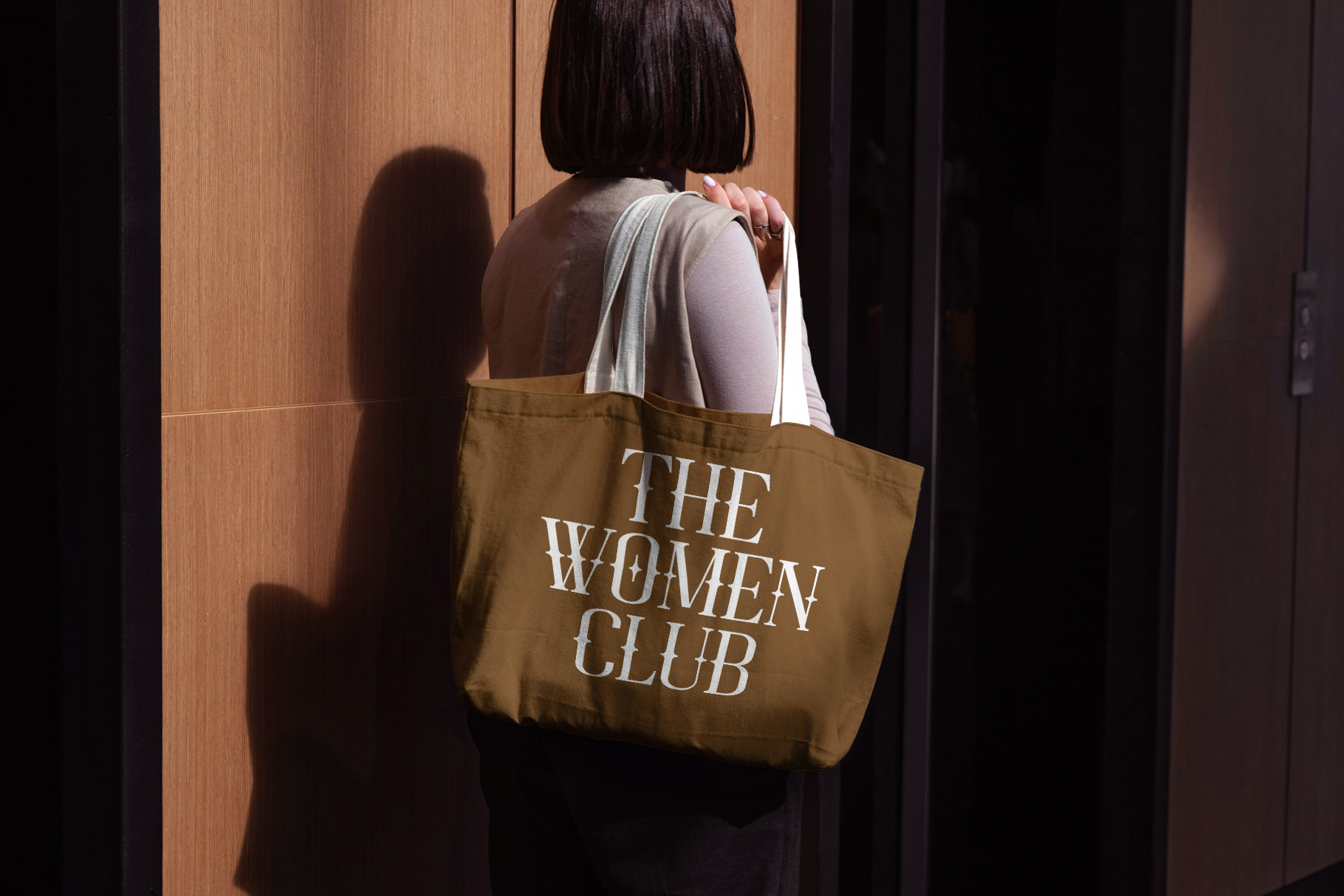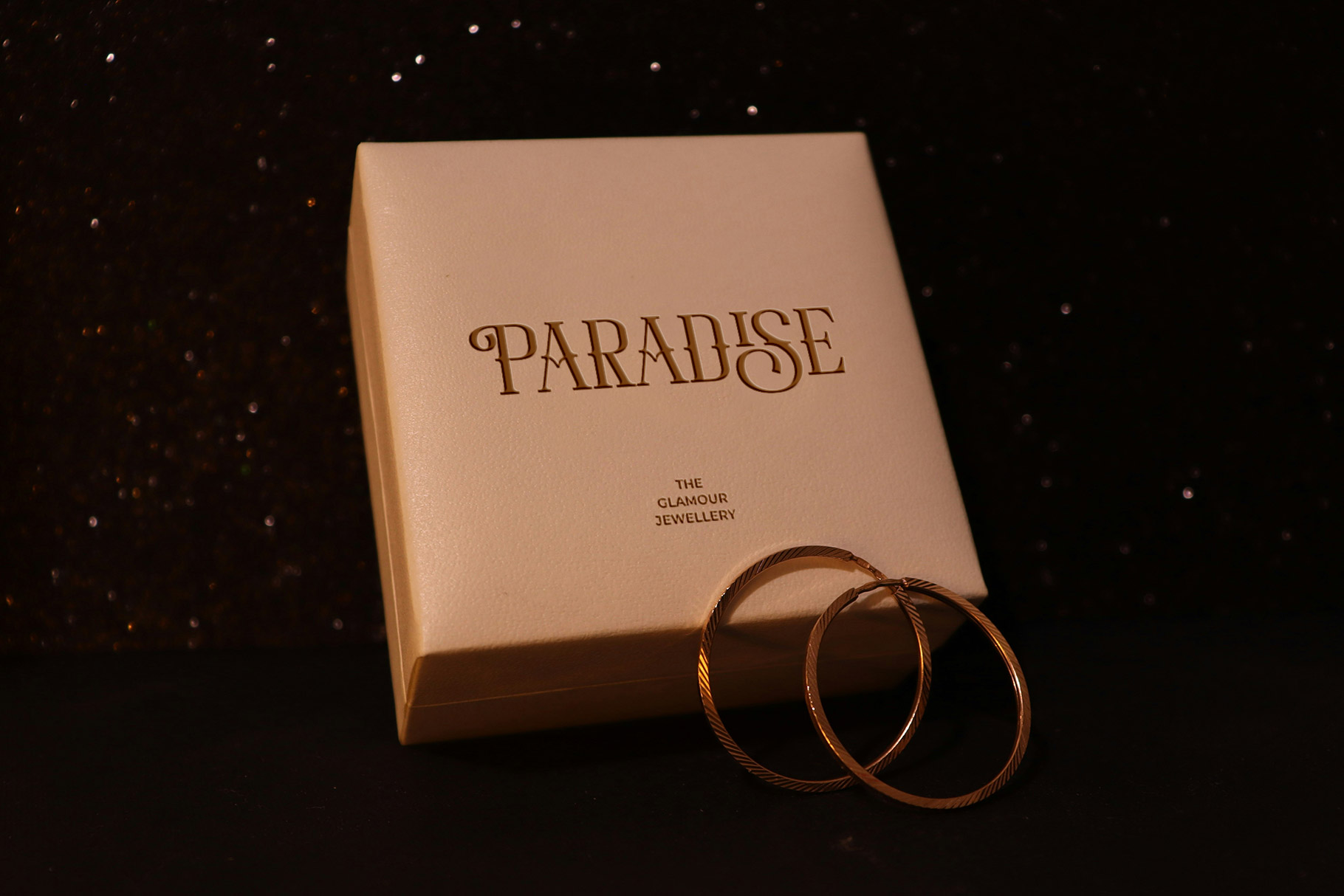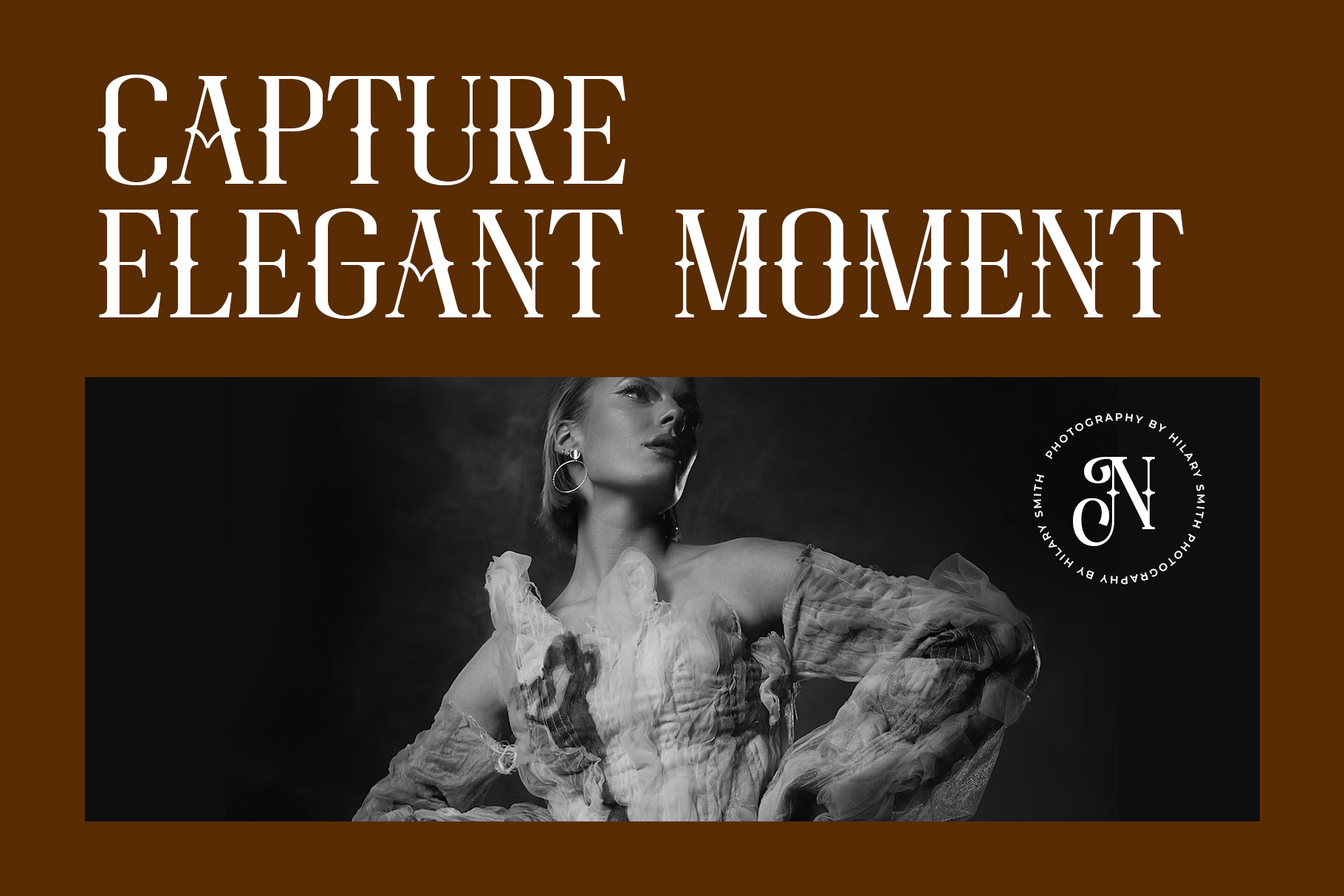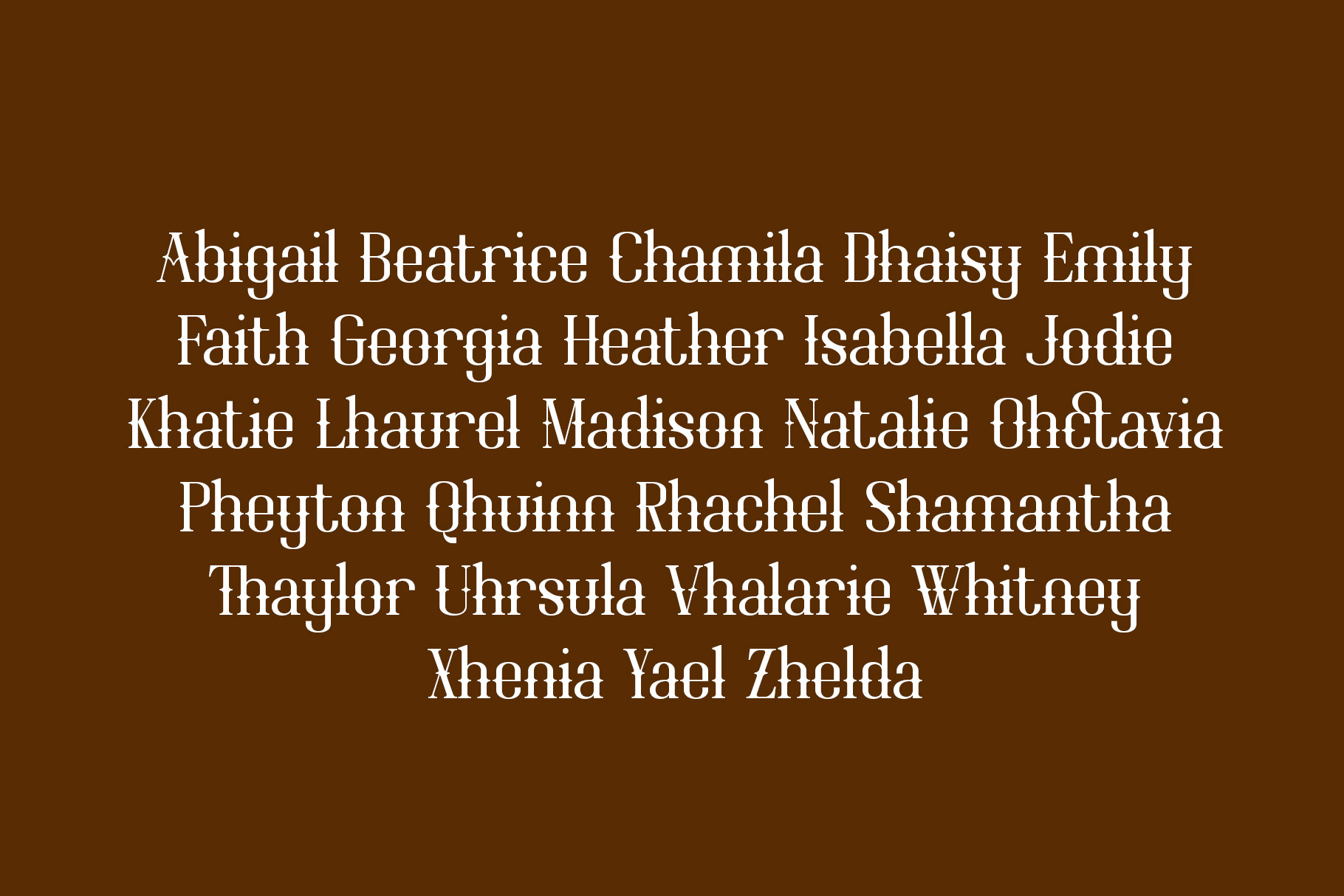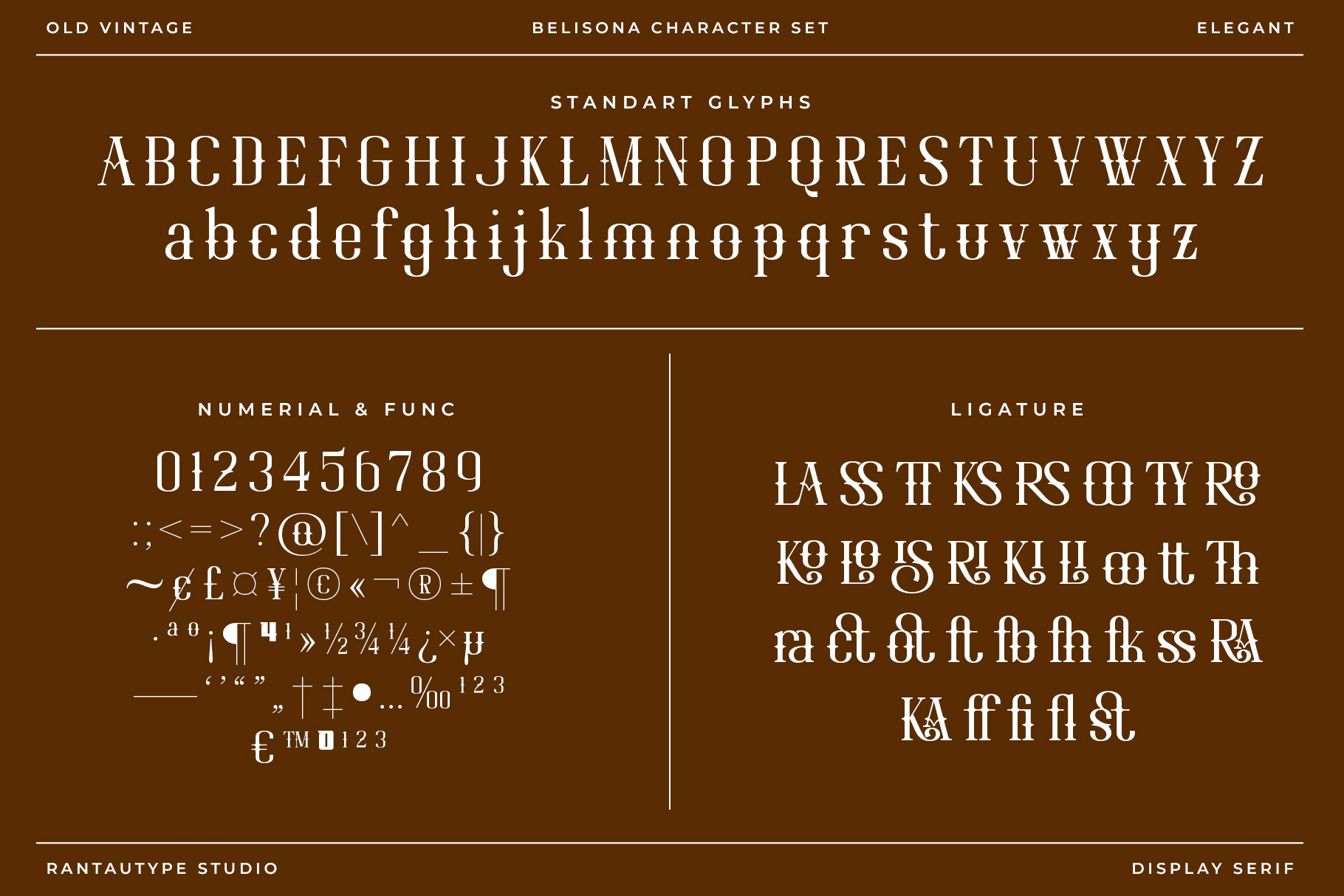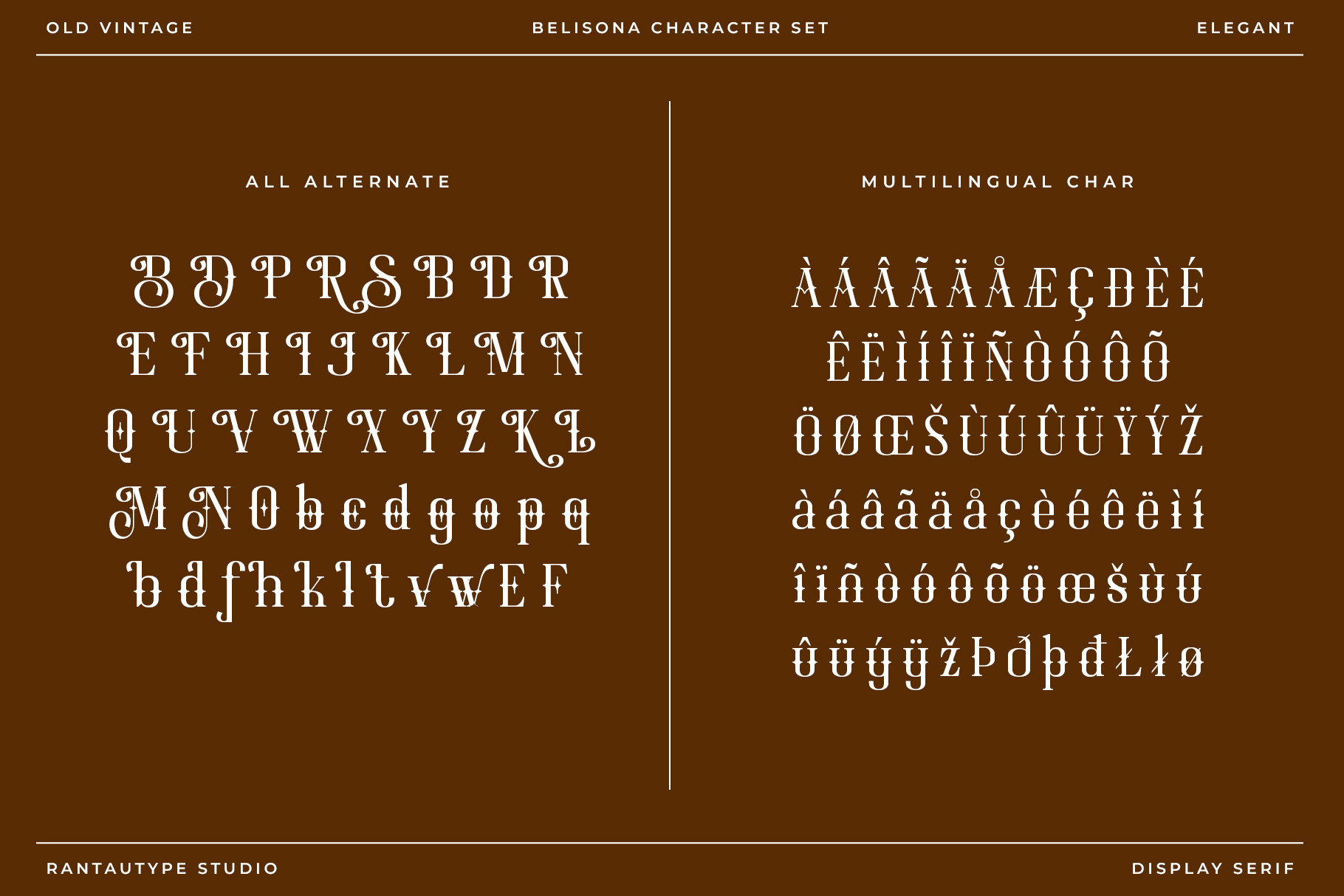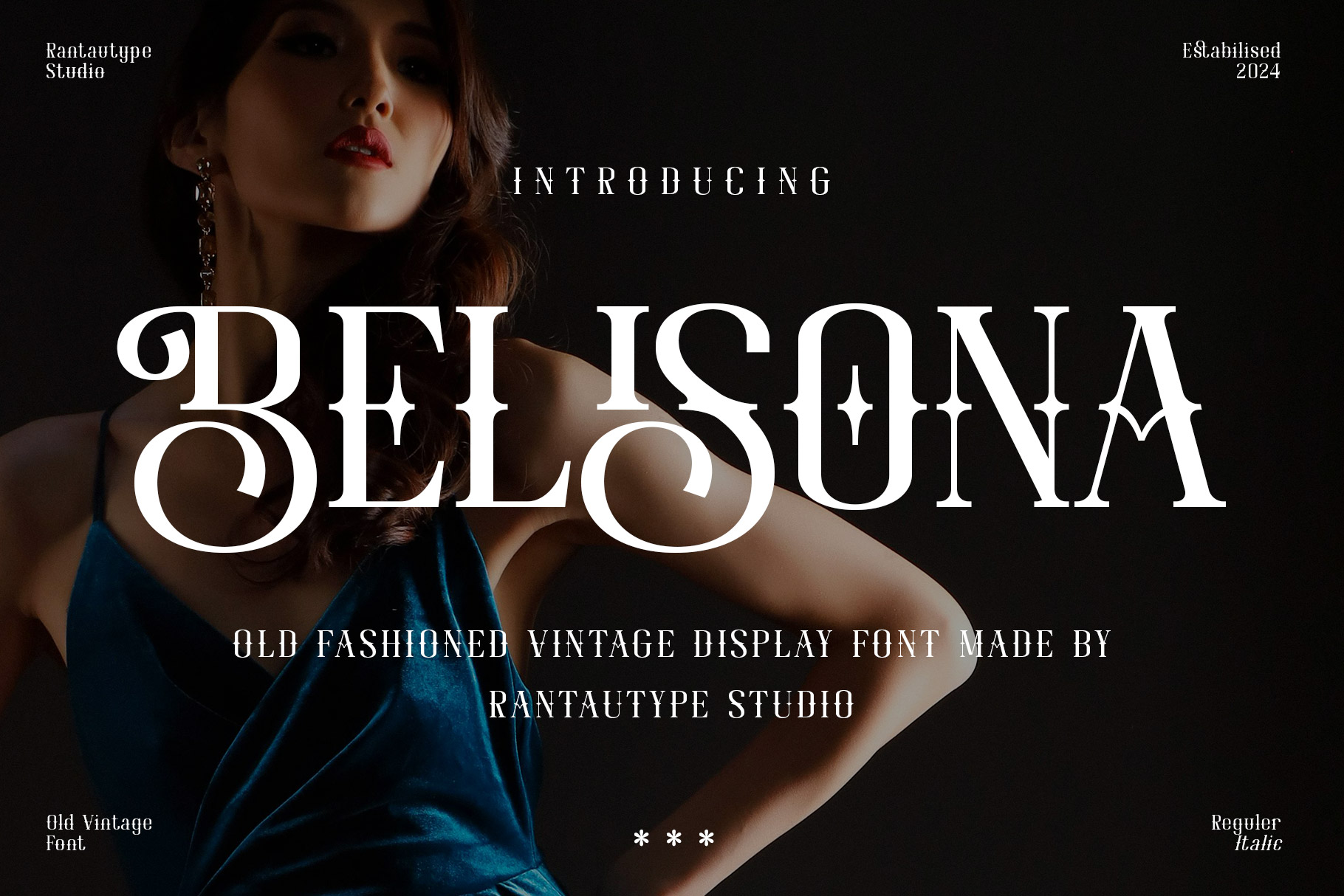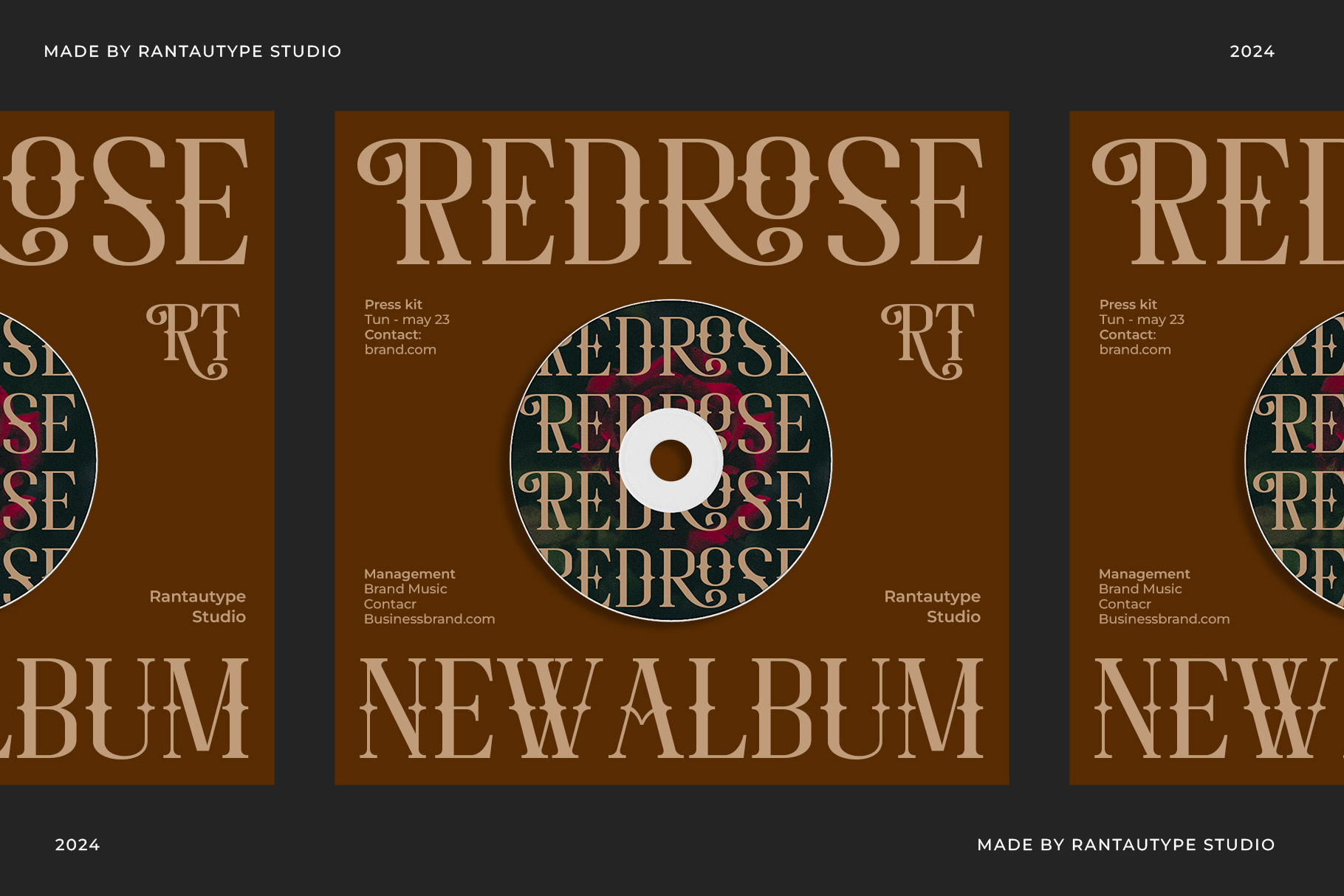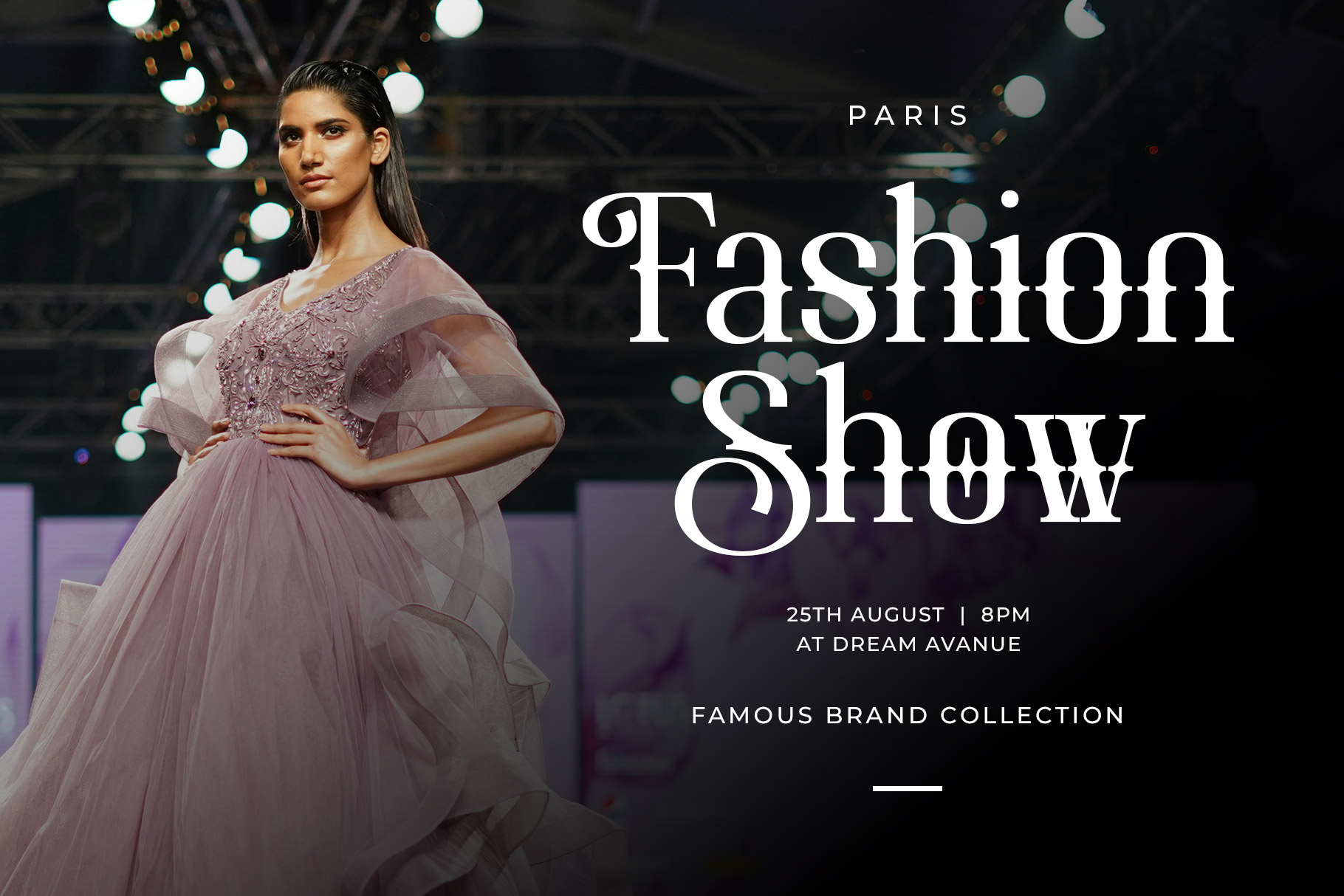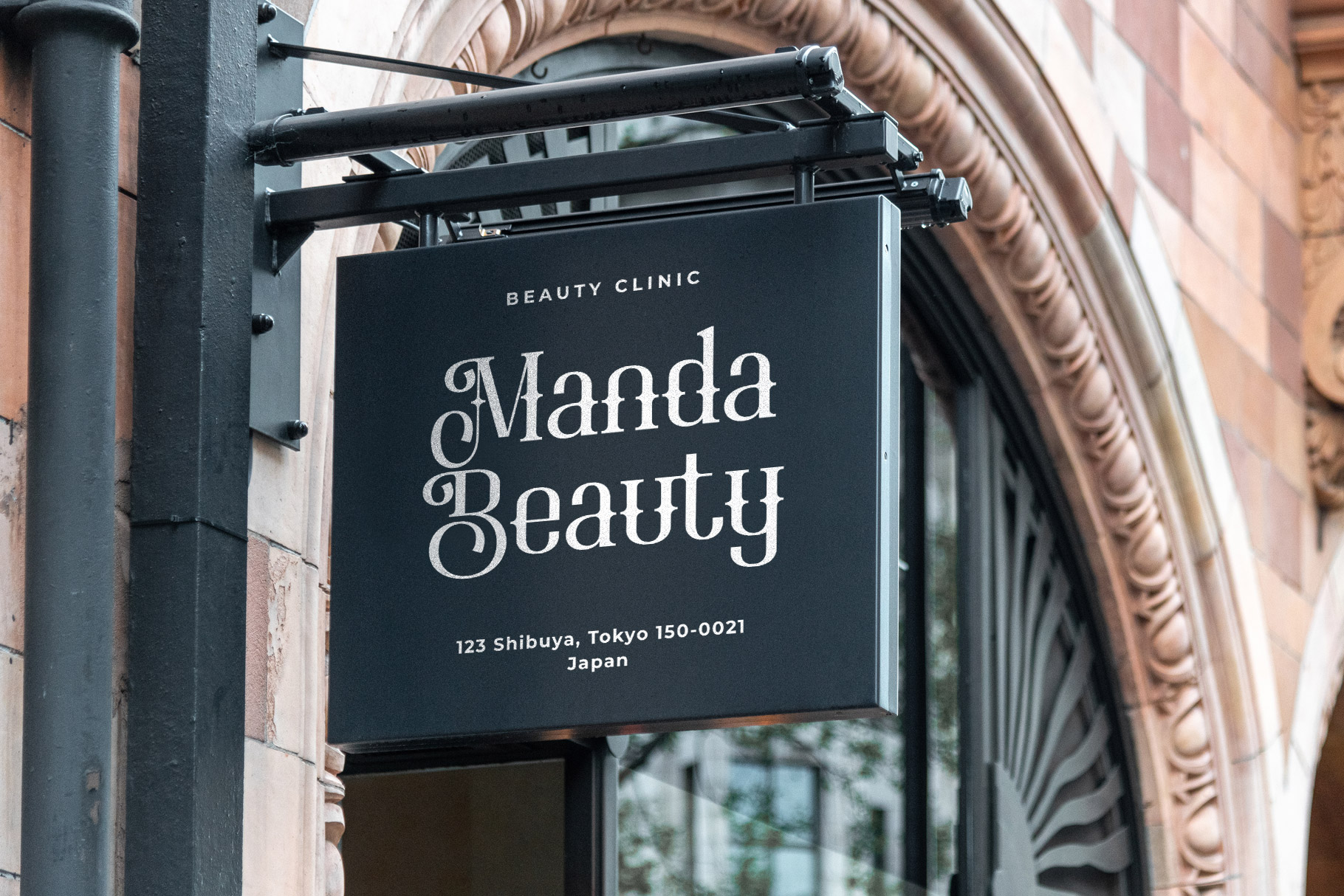
Belisona Old Fashioned Vintage Font
Belisona is professional vintage display font inspire by old fashioned in 70s and 80s. Belisona bring decorative character into elegant and fancy look to make your design project out standing. Belisona come with more feature, alternate, ligature and already support multilinggual character.
Belisona is a perfectly choice for any creative endeavor, chic, lifestyle design such as logos, advertisements, stationery, branding project, display and magazine, invitation, corporate brand, product design, label, business project and many other project with vintage touch.